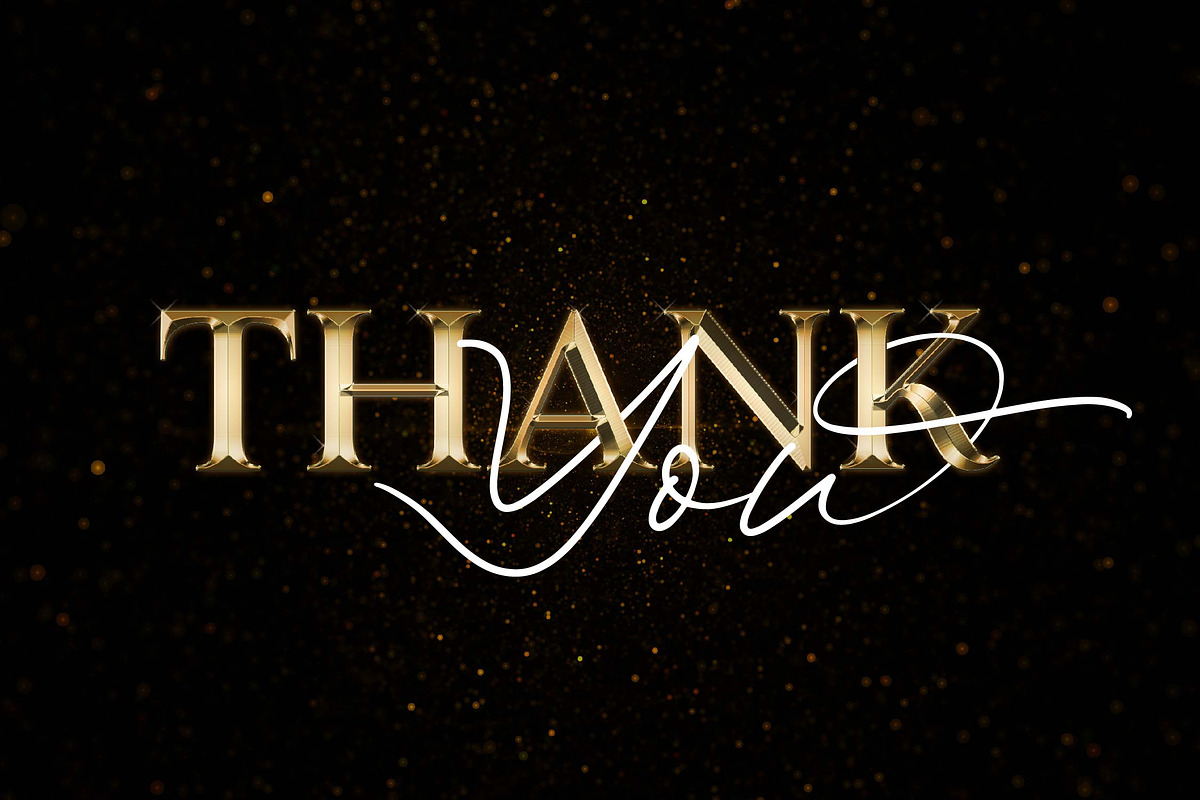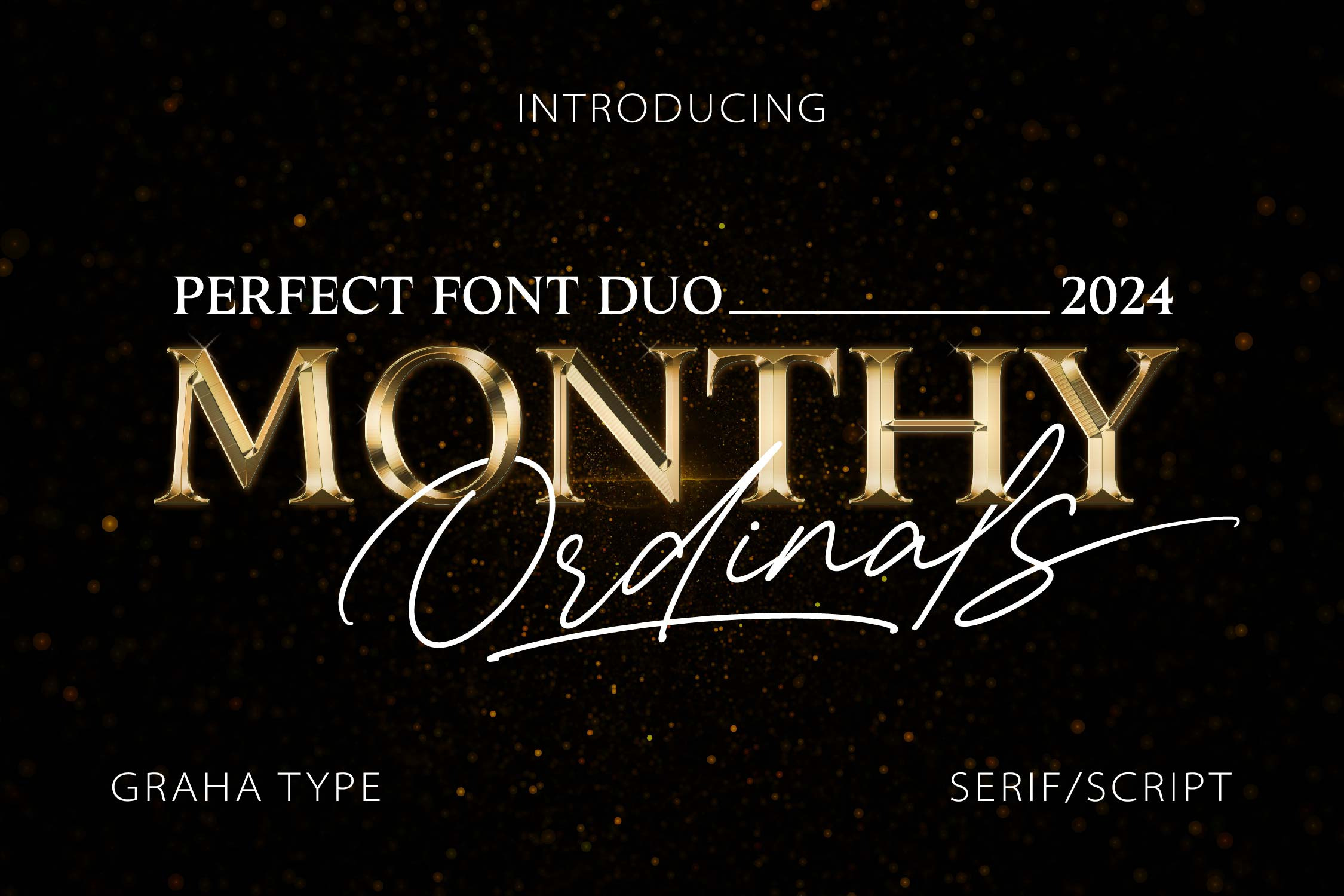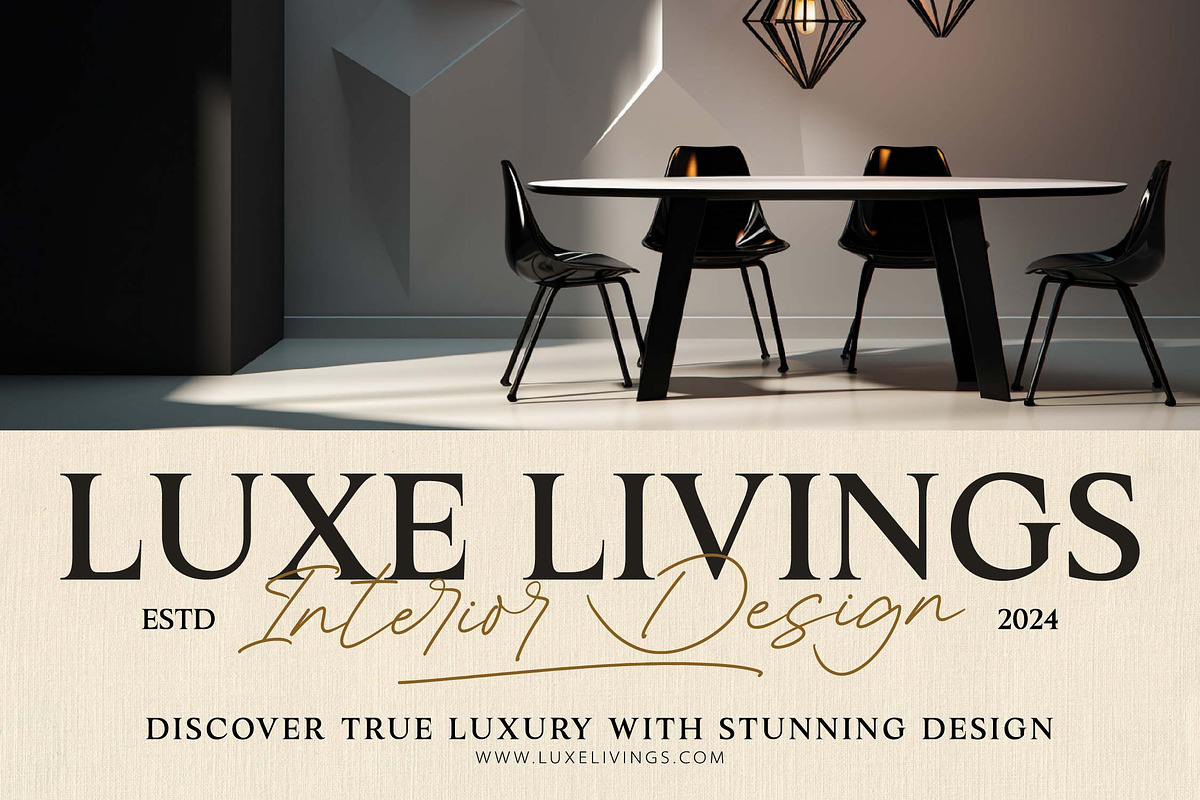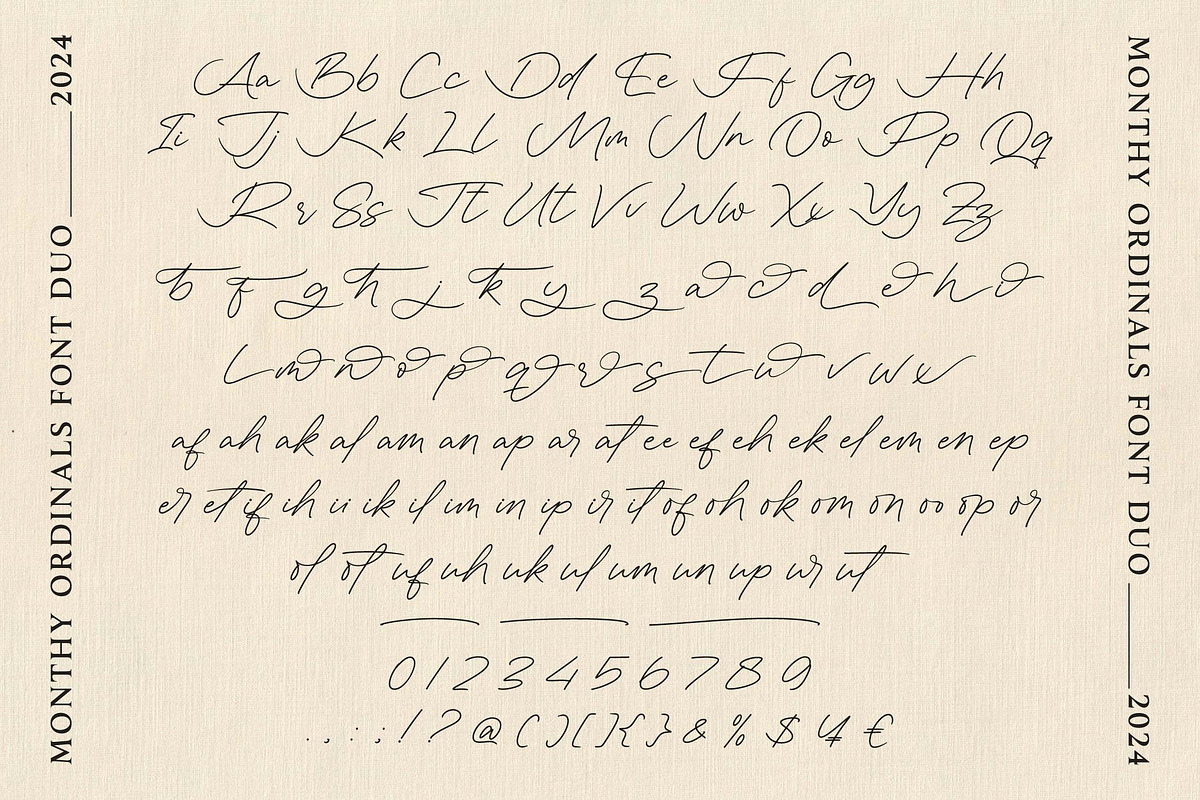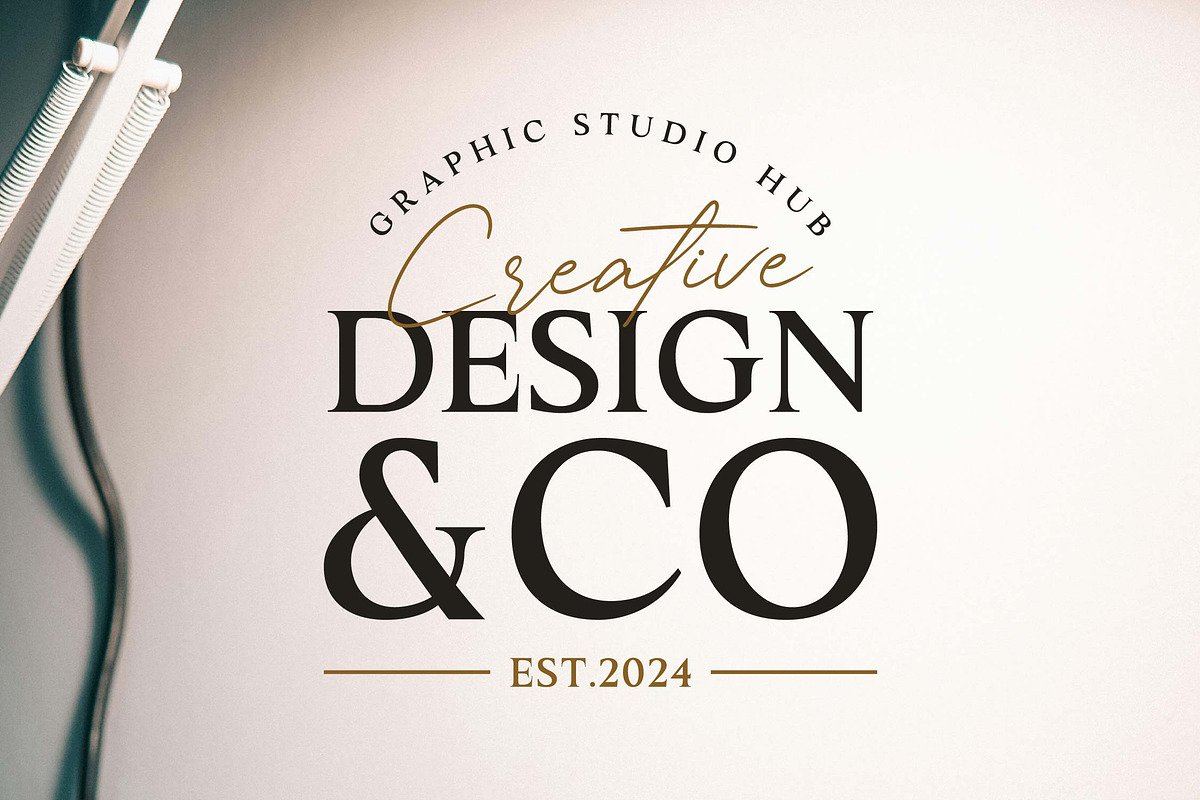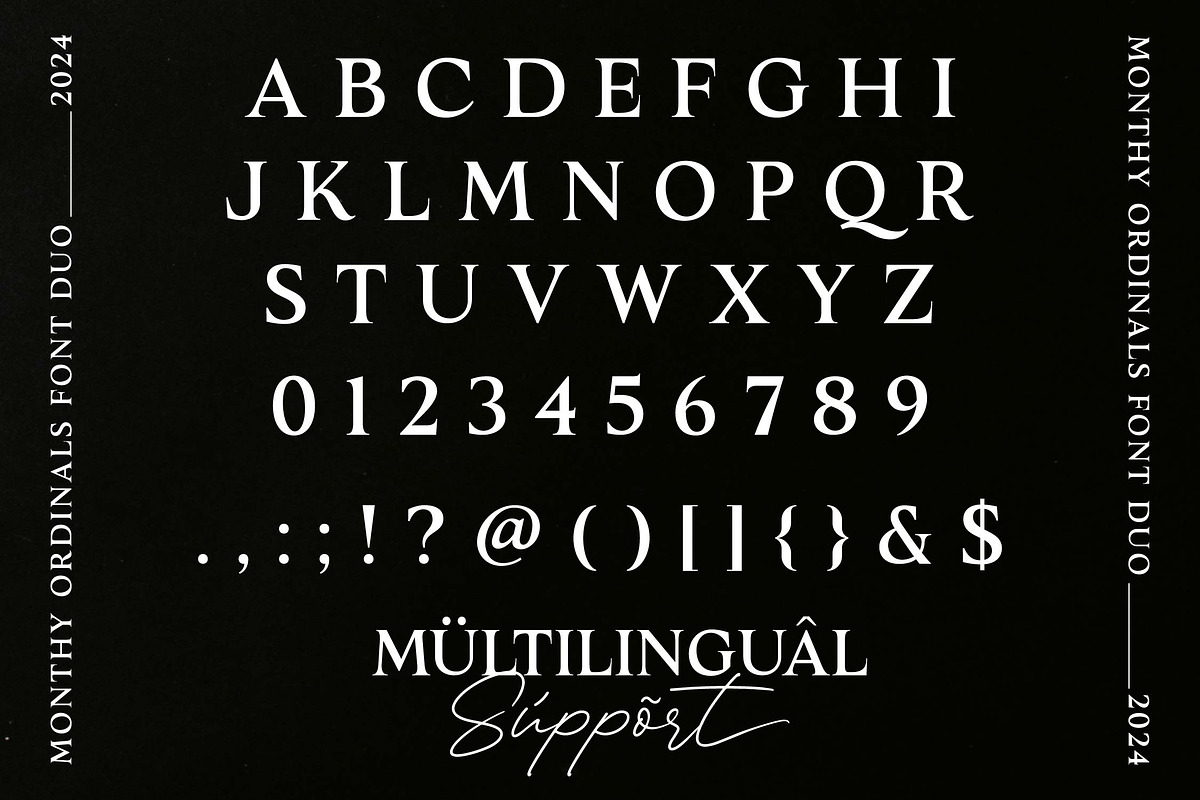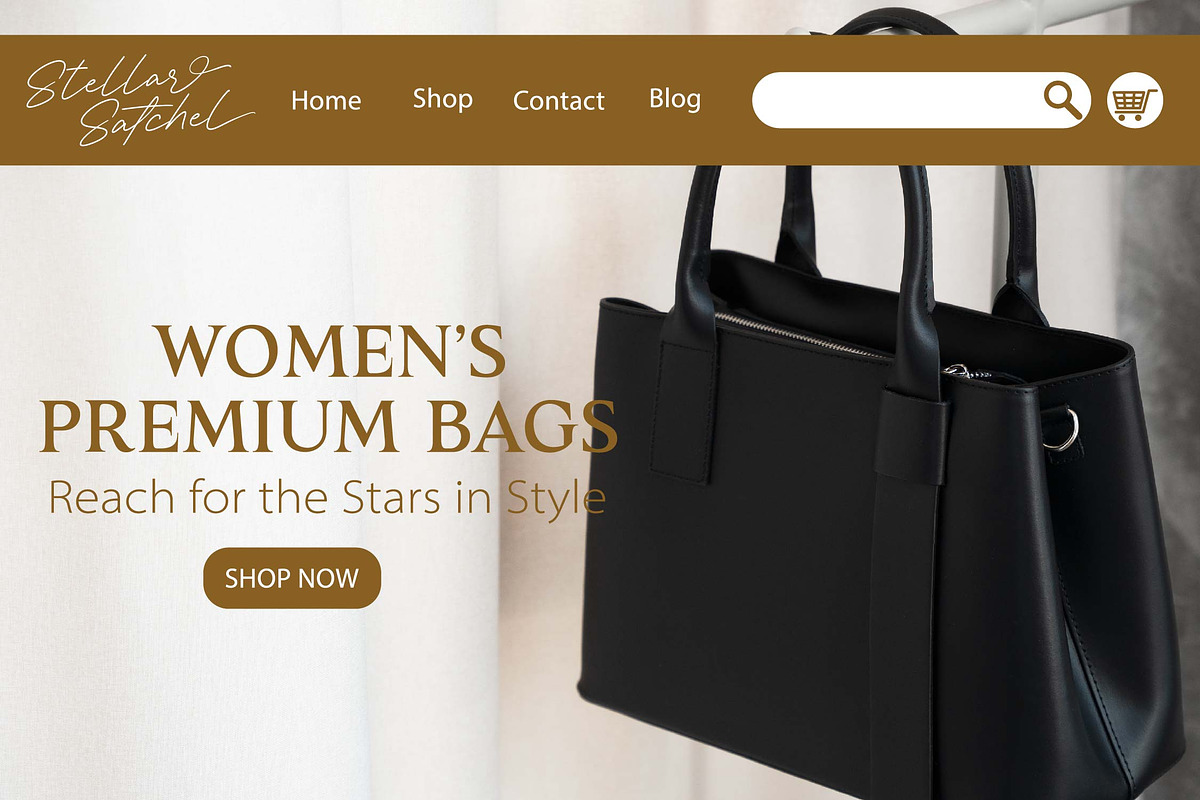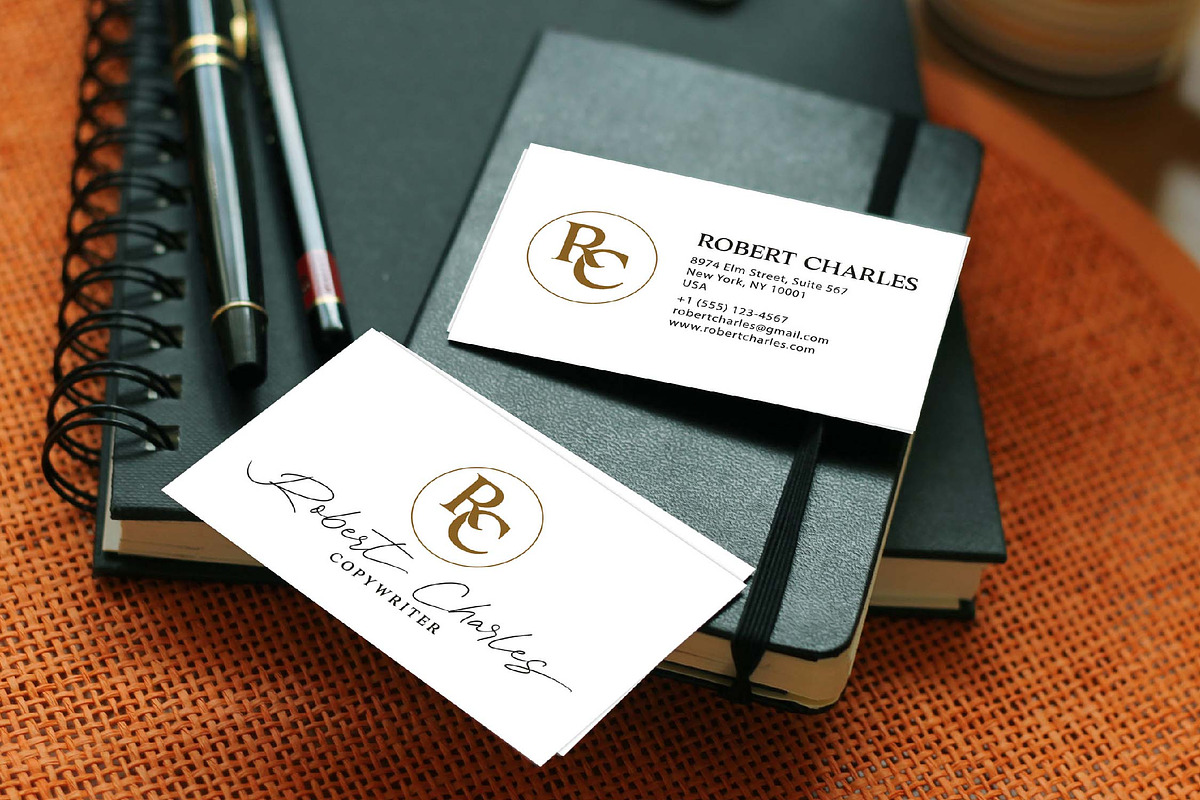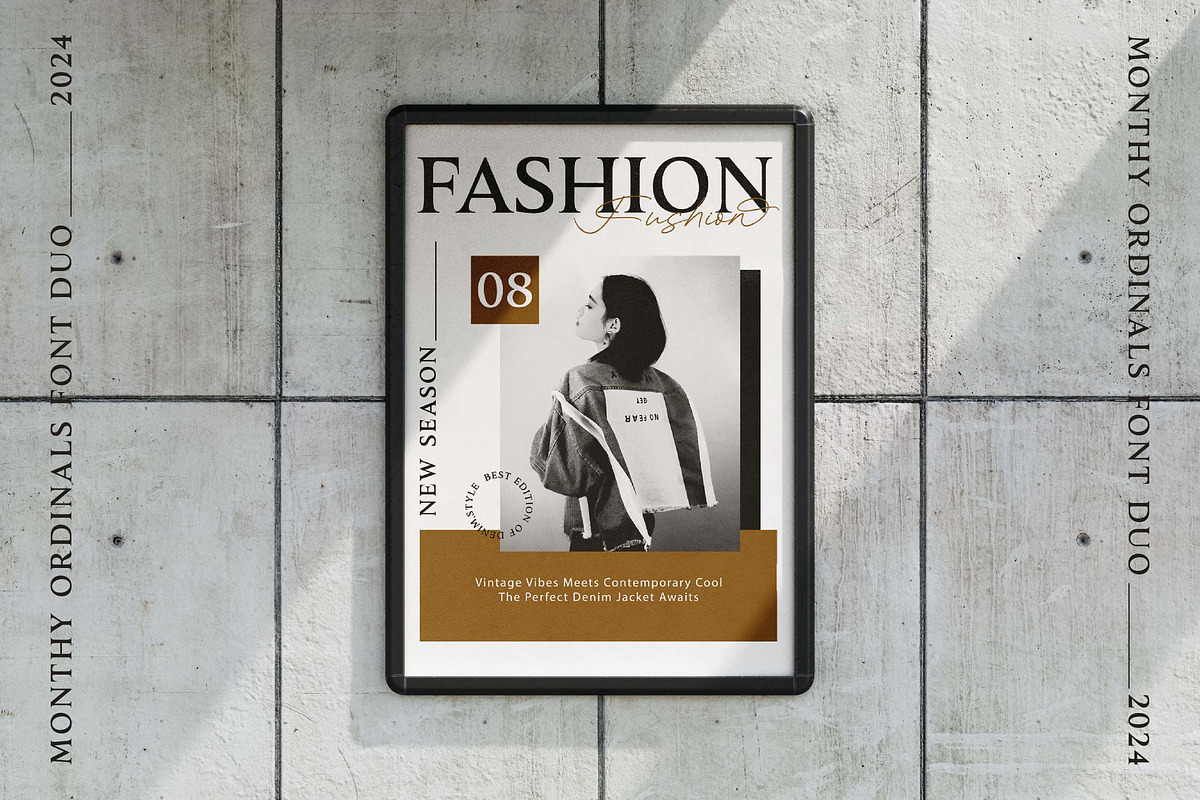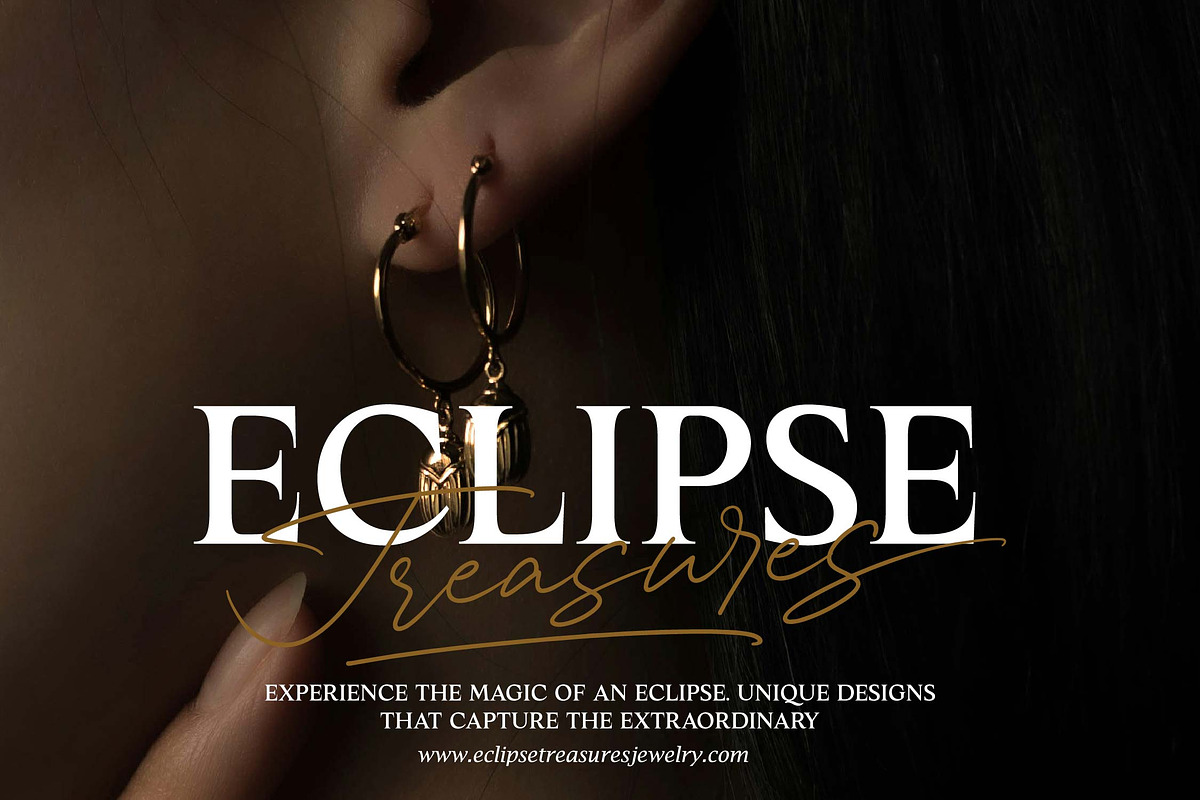
Monthy Ordinals - Font Duo
Monthy Ordinals Font Duo is a stylish combination of script and serif fonts, perfect for various design applications. It's great for use in posters, magazines, logos, merchandise, social media, and branding. Its flexibility allows it to enhance visual messages and brand identities across different design contexts effectively.